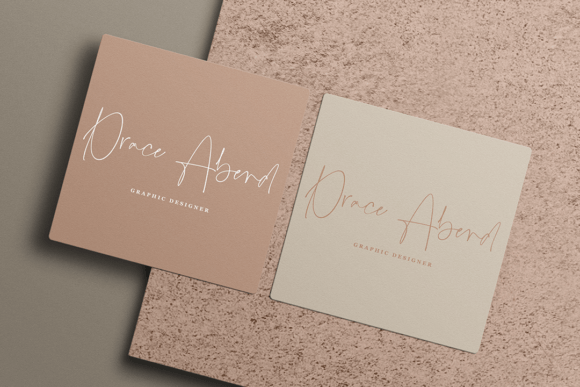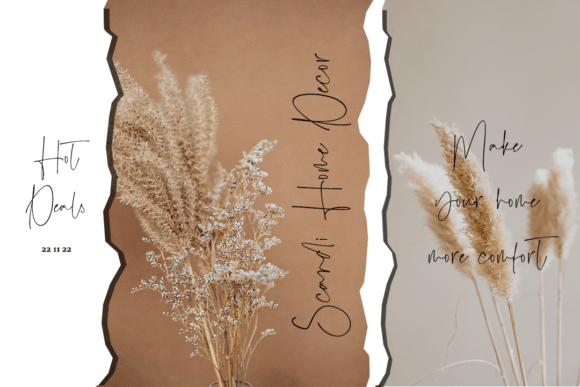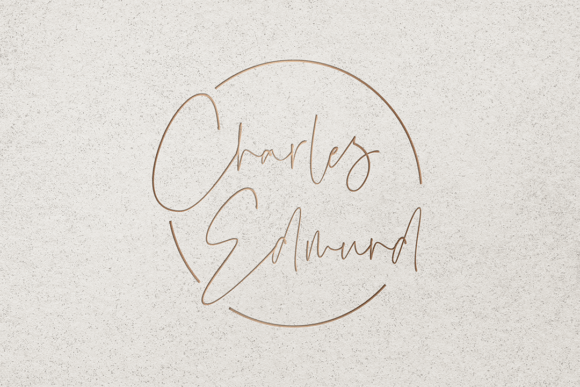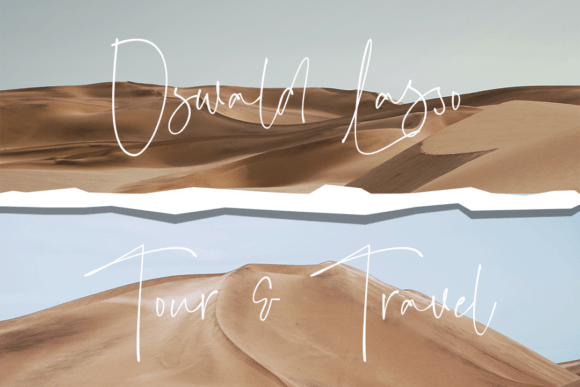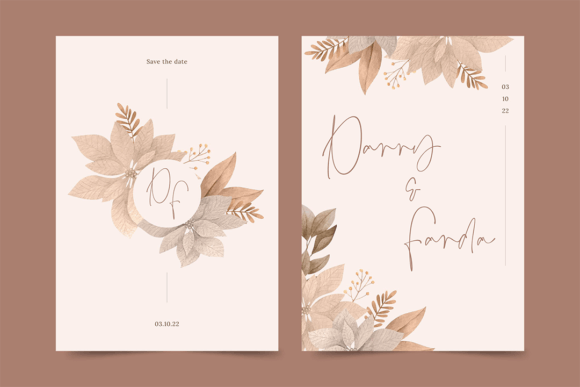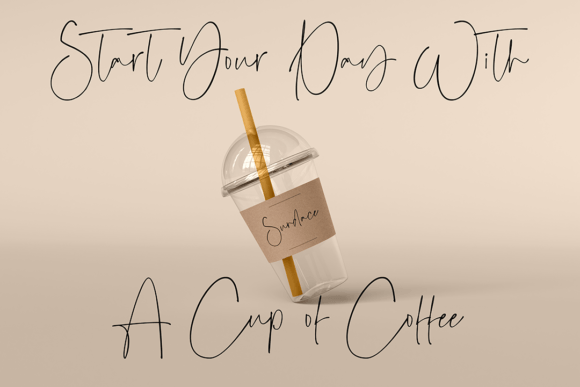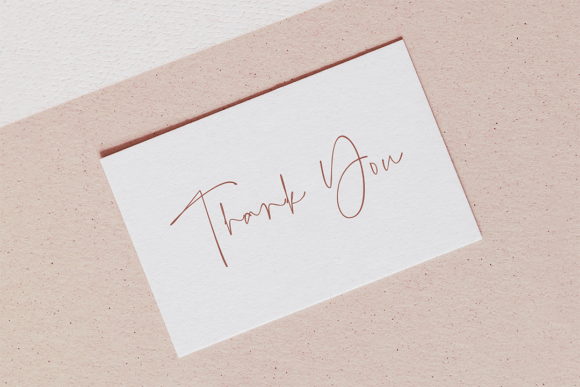
Cristy Font
About Cristy Font
Cristy is a thin and elegant handwritten font that fits into a variety of design projects, such as logos, business cards, invitations, and more. This gorgeous typeface will bring your design projects to life!